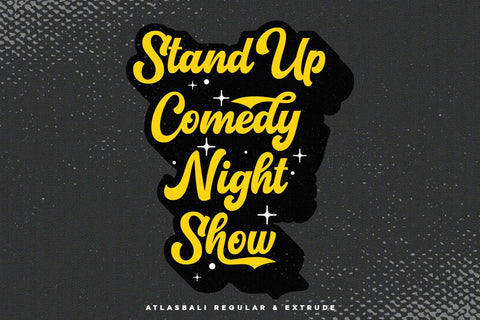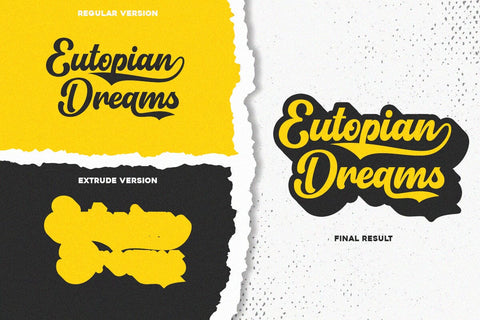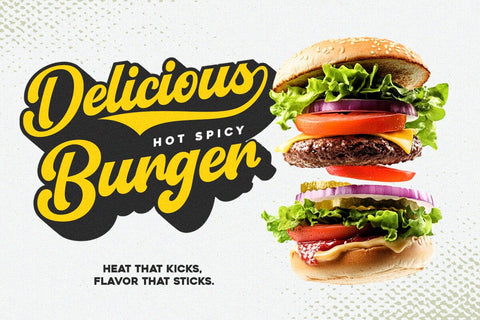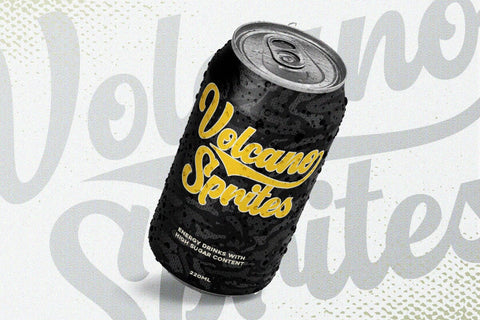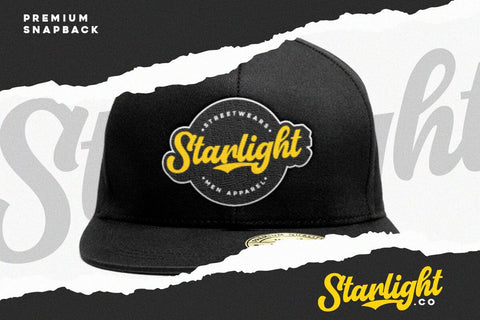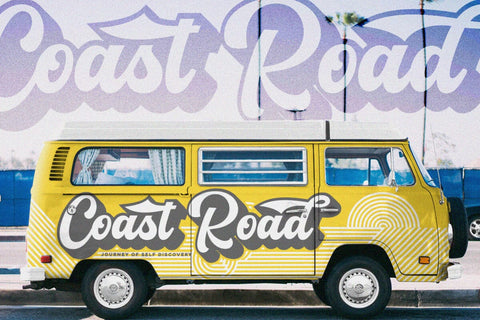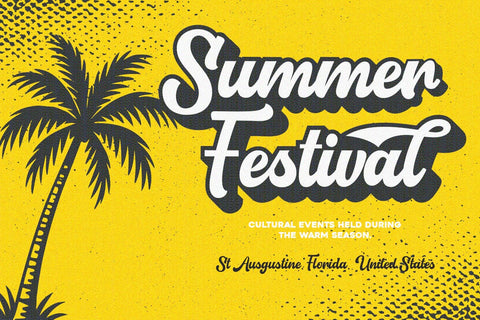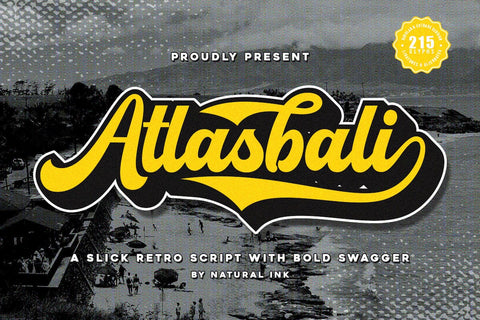
Atlasbali
Atlasbali is retro script font with vintage vibes. This font is cute, whimsical, and playful.
Atlasbali has lots of extra glyphs to give the designers more options for designing with this font. It also has extrude style to give shadow or layer for the regular one.
This font is perfect for any projects, especially with vintage style, such as logo, crafting, wedding invitation, branding, sticker, sublimation, quotes, and many more.